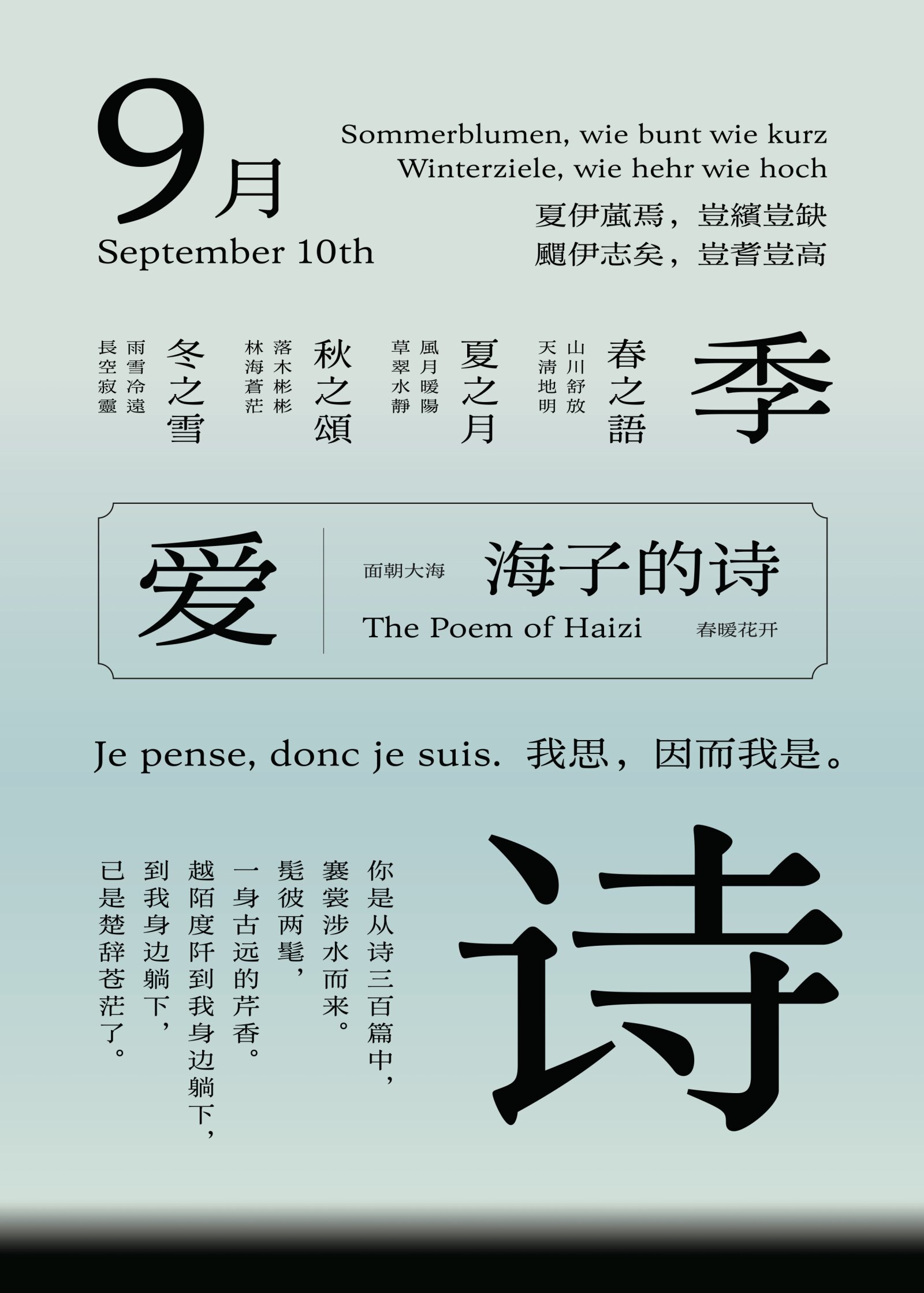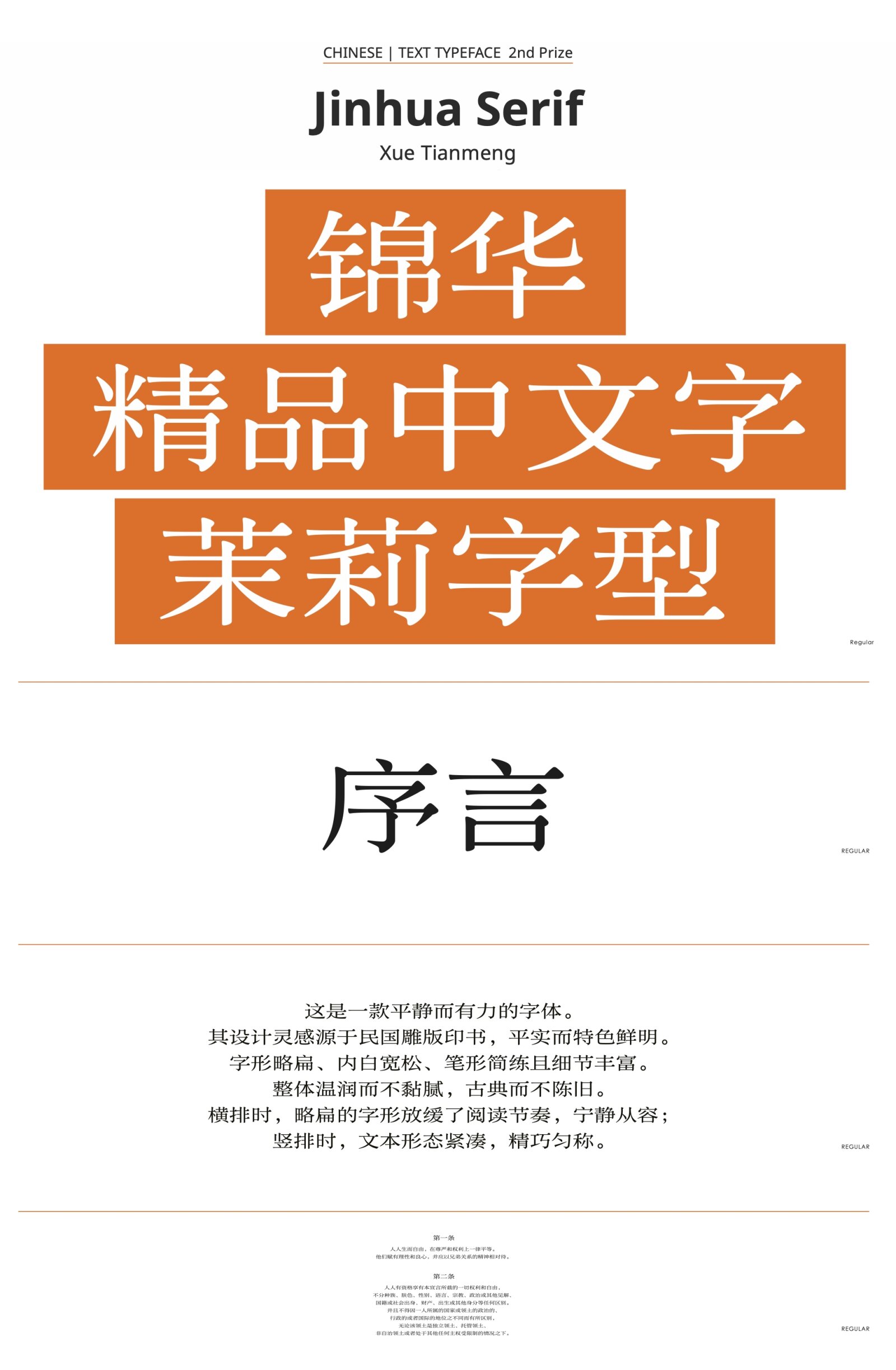
Jinhua Serif
by Xue Tianmeng
Chinese
Jinhua Serif is inspired by the charms and nuances of a woodblock print from the Republican Era. Its slightly short look comes with relaxed counter and gentle, defined strokes full of articulated details. The overall quality Jinhua Mincho aims to offer is a classic, cordial feeling without the old-time, clichéd overtones that a woodblock usually carries. It is simple, unpretentious, yet incisive and powerful. If set horizontally, the well-leveled font slows down the reading, giving it a calm and paced rhythm; a vertical arrangement would render the text columns compact, elegant and well-proportioned.